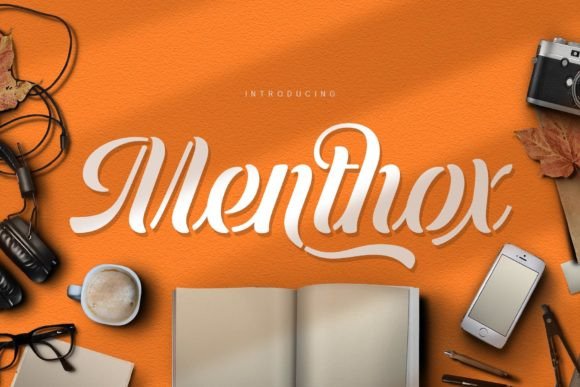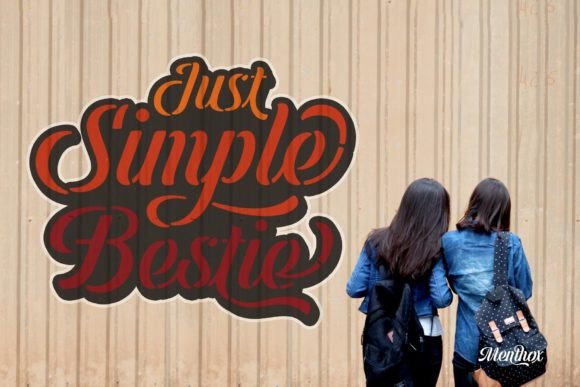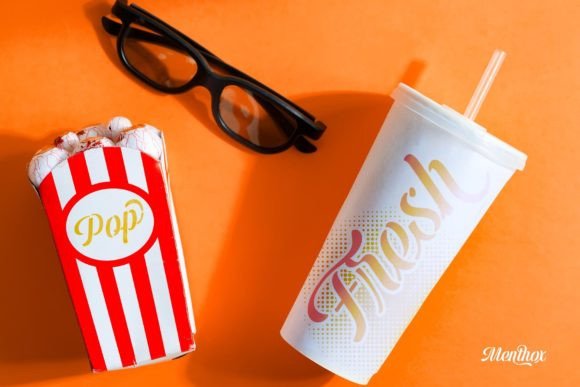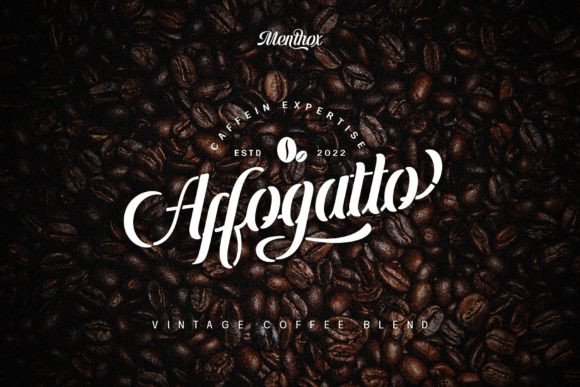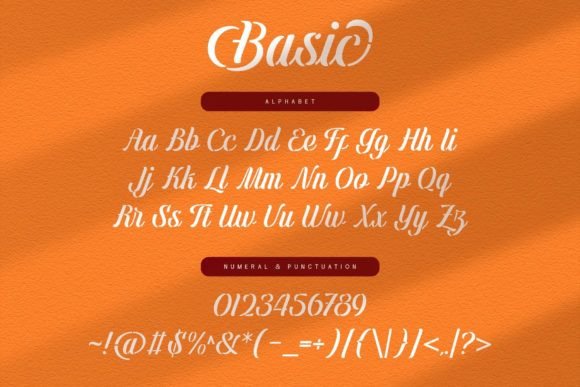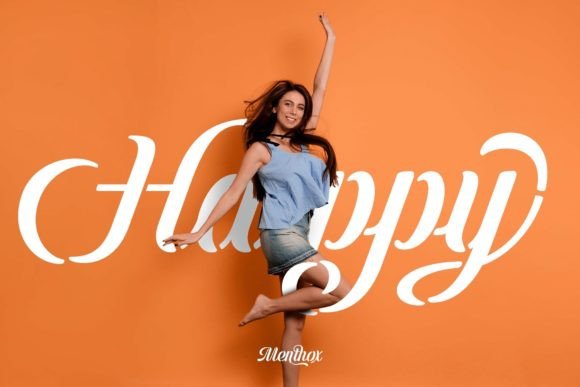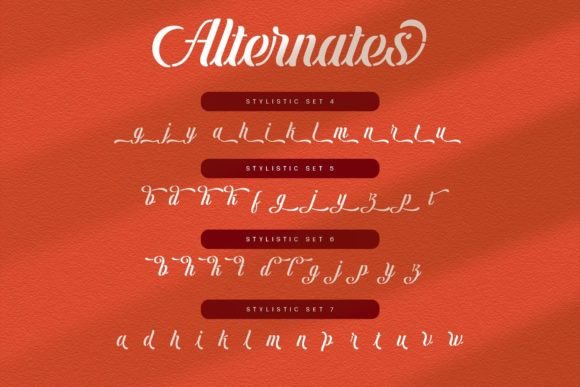
Menthox Font
The Menthox font is designed with a script font concept that has a decorative stencil style. Strong characters with stencil styles make Menthox fonts look different and unique from other script fonts.
A script typeface like “Menthox” is very easy to apply to any design, especially those with dynamic, relaxed, and retro fashion concepts, besides that this font is very easy to use in both design and non-design programs because all glyphs in the Menthox font are supported by Unicode. (PUA).